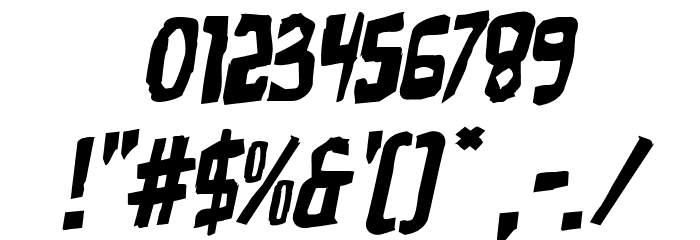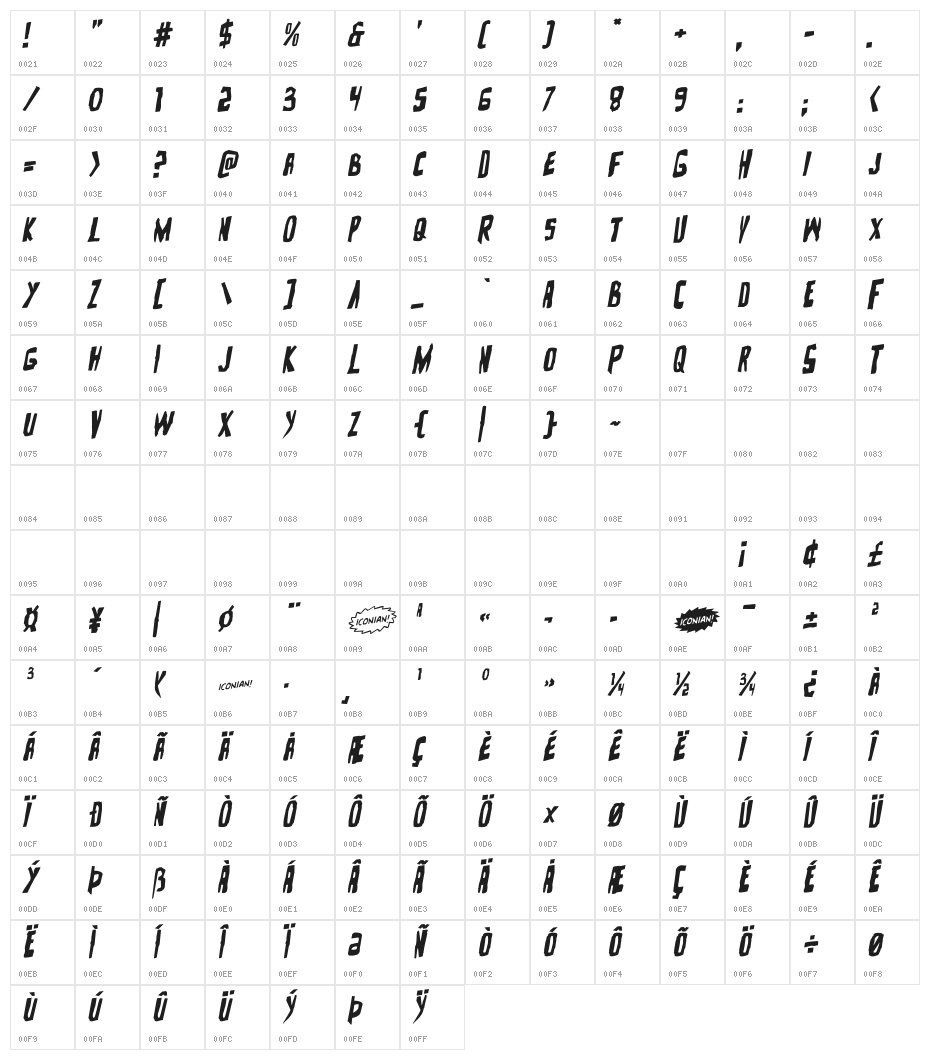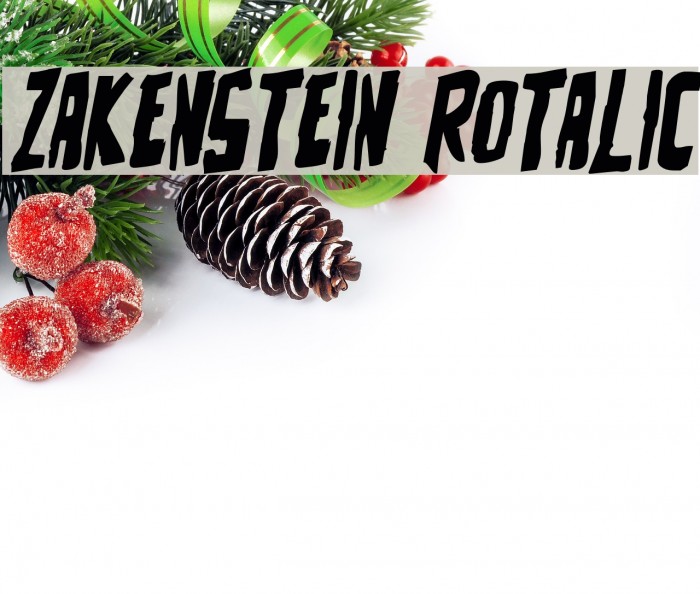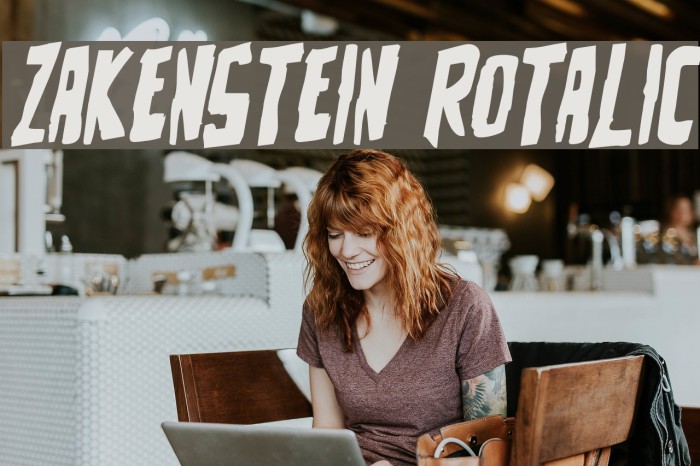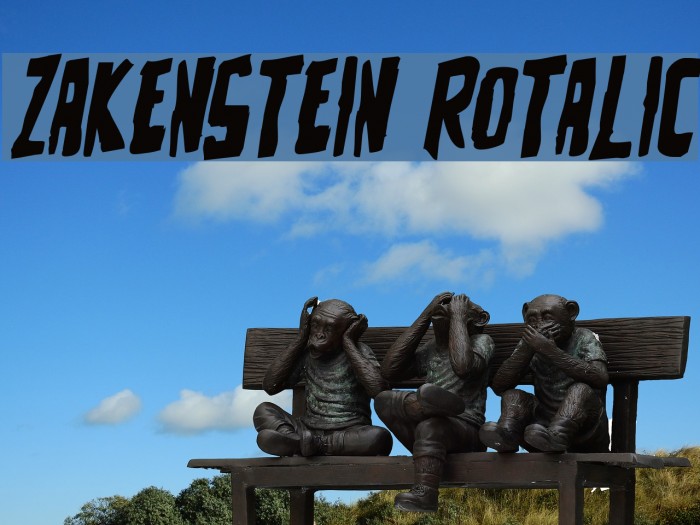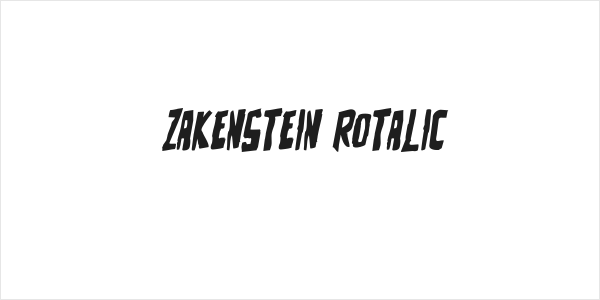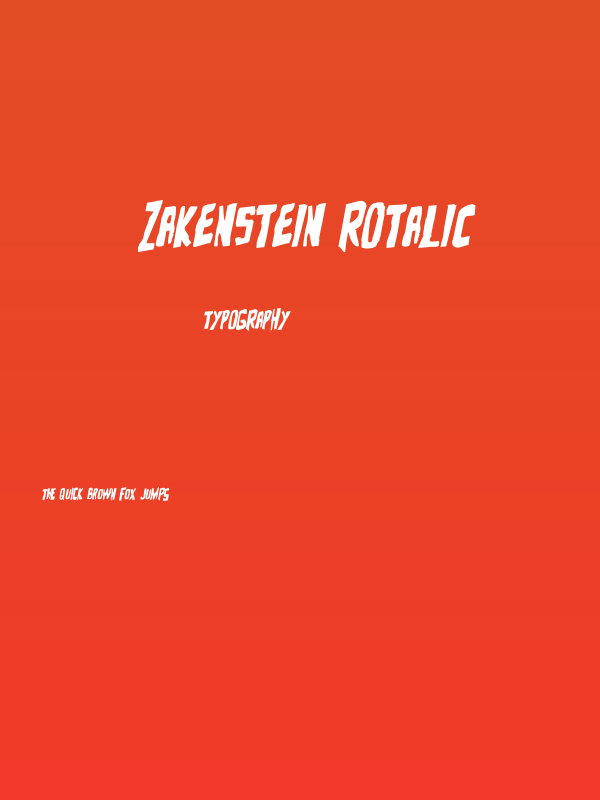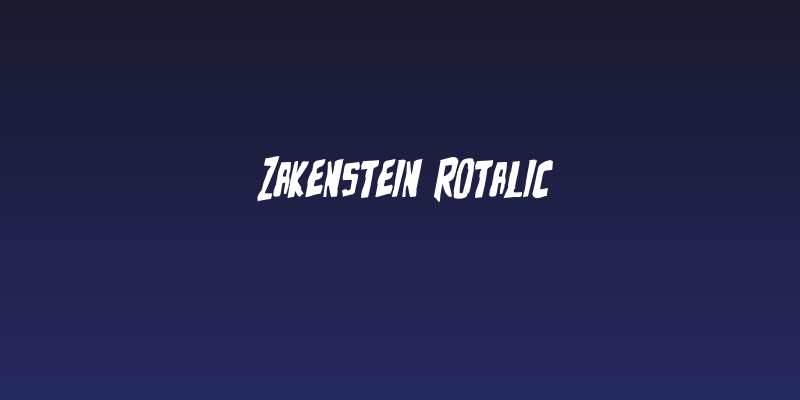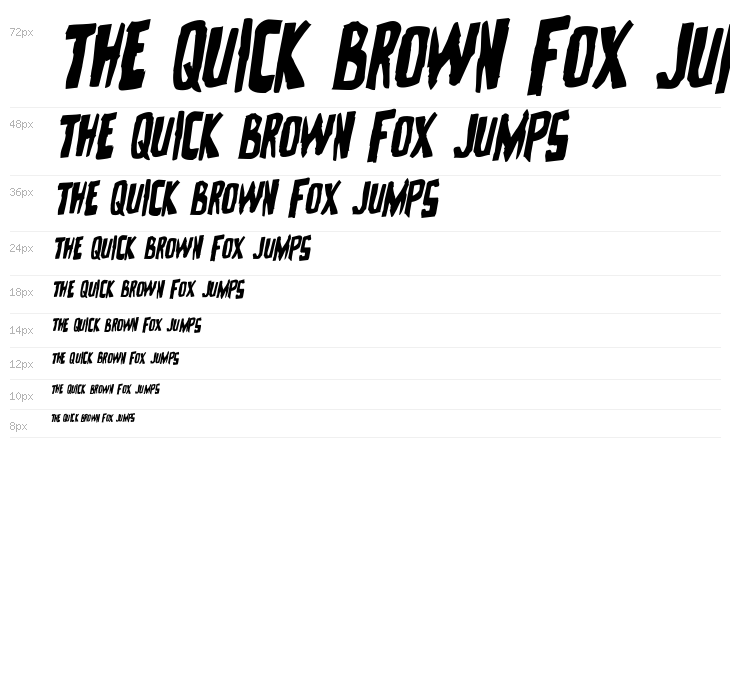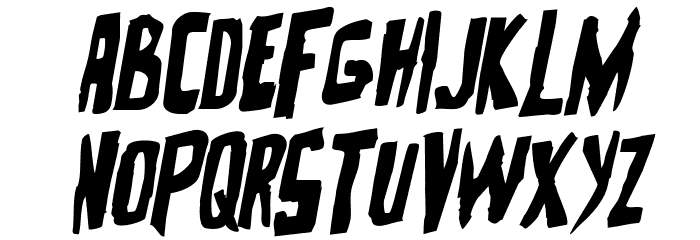
Zakenstein Rotalic Font
Zakenstein Rotalic Description
This font features a bold and dynamic style with sharp, angular edges and a slightly slanted orientation, giving it a sense of movement and energy. The characters are designed with a high contrast between thick and thin strokes, adding to its dramatic appearance. The uppercase and lowercase letters maintain a consistent style, while the numerals and special characters are crafted to match the overall aesthetic. This font is eye-catching and suitable for projects that require a strong visual impact.
| Proposed Projects | Ideal for posters, logos, branding, and any design that needs a striking and energetic typeface. |